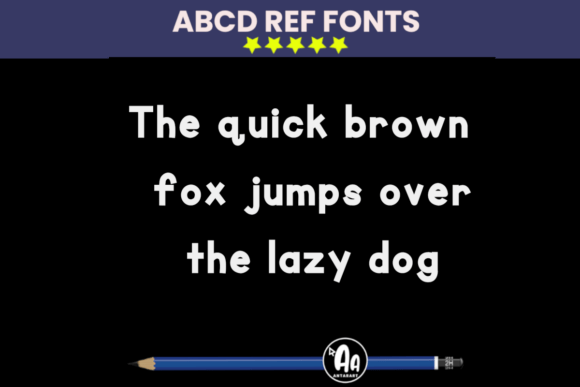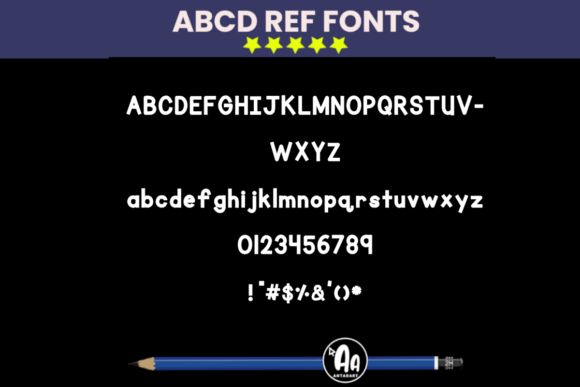
Introducing the Alphabet Bold Sharp Font: A Perfect Tool for Teachers and Educators
Are you a teacher, homeschool educator, or classroom organizer looking for a font that can help you create engaging and effective learning materials? Look no further than the Alphabet Bold Sharp Font. This versatile font is designed specifically for educational purposes, featuring sharp, clear, and traditional school-style letters that are perfect for letter tracing practice, bulletin board titles, and classroom wall displays.
Key Features of the Alphabet Bold Sharp Font
- Bold and Easy-to-Read Design: The Alphabet Bold Sharp Font boasts a bold and easy-to-read design, making it ideal for young learners, special education, and early literacy centers.
- Traditional School-Style Letters: The font features traditional school-style letters that are perfect for creating engaging handwriting worksheets, alphabet posters, tracing activities, and decorative classroom signs.
- Comprehensive Font Set: The Alphabet Bold Sharp Font set includes uppercase, lowercase, numbers, and symbols, making it a comprehensive tool for handwriting practice, classroom management, and eye-catching bulletin board displays.
- Versatile and Adaptable: This font is great for both printable teaching resources and digital classroom decor, allowing teachers to use it across various platforms and mediums.
Uses of the Alphabet Bold Sharp Font
The Alphabet Bold Sharp Font is an incredibly versatile tool that can be used in a variety of ways to support learning and classroom management. Some of the uses of this font include:
- Handwriting Practice: Create engaging handwriting worksheets and tracing activities that help young learners develop their writing skills.
- Classroom Decor: Use the font to create decorative classroom signs, bulletin board titles, and wall displays that add a touch of personality to your learning space.
- Alphabet Posters and Charts: Design eye-catching alphabet posters and charts that help students learn and recognize letters.
- Name Tags and Flashcards: Use the font to create name tags, flashcards, and other learning materials that support student learning.
- Title Lettering: Add a bold and eye-catching touch to your title lettering with this font, perfect for headings, subheadings, and emphasis.
Benefits for Teachers and Educators
The Alphabet Bold Sharp Font offers a range of benefits for teachers and educators, including:
- Time-Saving: Create high-quality learning materials quickly and efficiently with this font.
- Customizable: Use the font to create customized learning materials that meet the needs of your students.
- Support for Learning: The font is designed to support learning and literacy, making it an invaluable tool for educators.
| Font Name | Alphabet Bold Sharp Font |
| Author | AntarArt |
The Alphabet Bold Sharp Font is a valuable resource for teachers, homeschool educators, and classroom organizers. With its bold and easy-to-read design, traditional school-style letters, and comprehensive font set, it’s the perfect tool for creating engaging and effective learning materials. Whether you’re looking to create handwriting worksheets, alphabet posters, or decorative classroom signs, this font is sure to meet your needs.